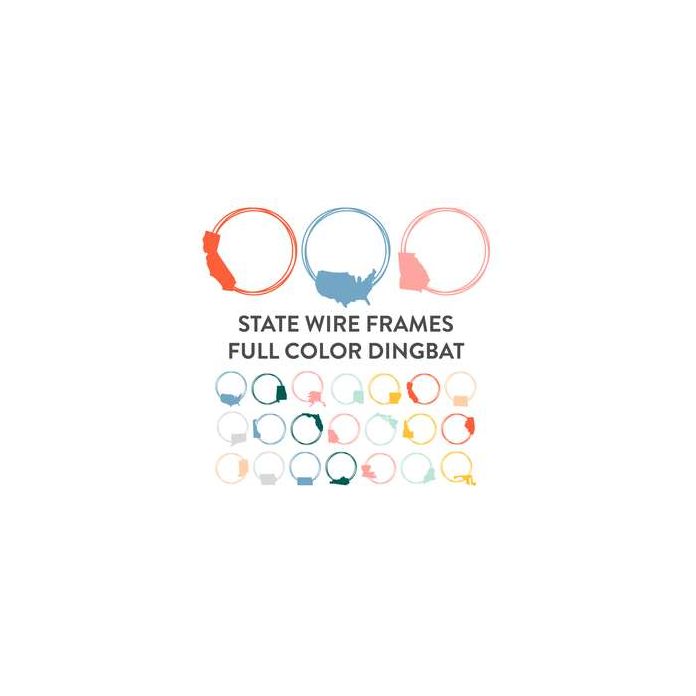
state wire frames full color dingbat font
This full color otf dingbat comes with all 50 states plus the United States image. Use upper and lowercase a-z to access.